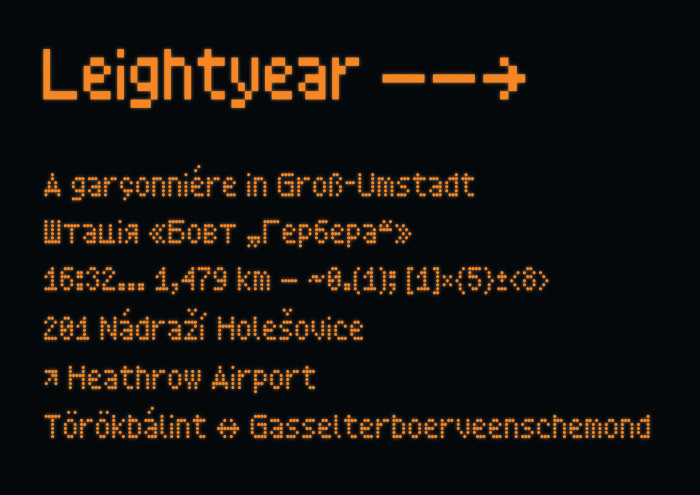
• Got the inspiration for this one from a Scania L94UB bus with a route information screen. The one I came across displayed “Leighton Buzzard” in this dotted font. Those letters were the starting point, but weren’t kept exactly the same as they were on that screen.